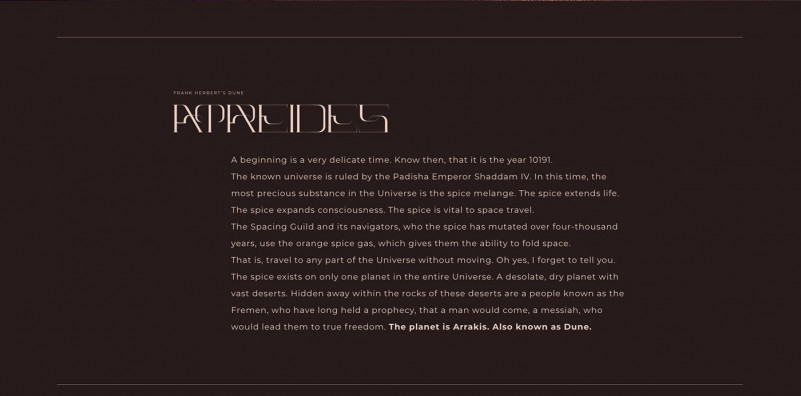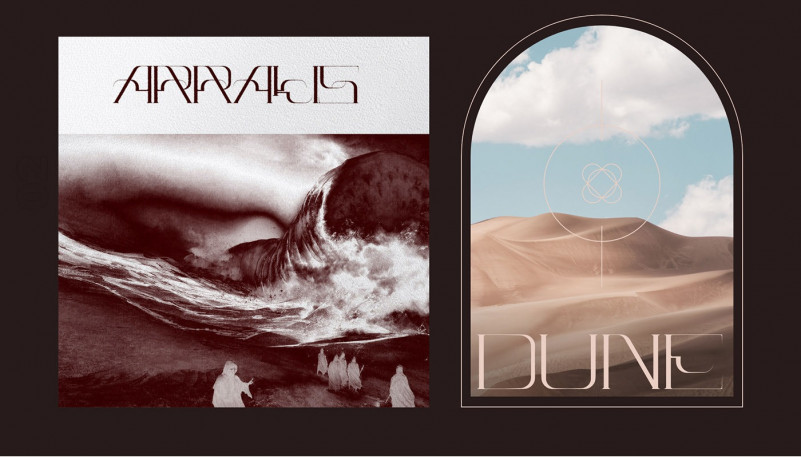
Atreides Font
Atreides Display Font
This font has unique and sleek letterform, make it great to be used for modern and minimalistic design theme. Perfectly for headlines, logos, posters, packaging, T-shirts,coffee shops, restaurants, magazine’s headers, signs or gift/post cards,cafe’s and weddings or any type of advertising purpose.